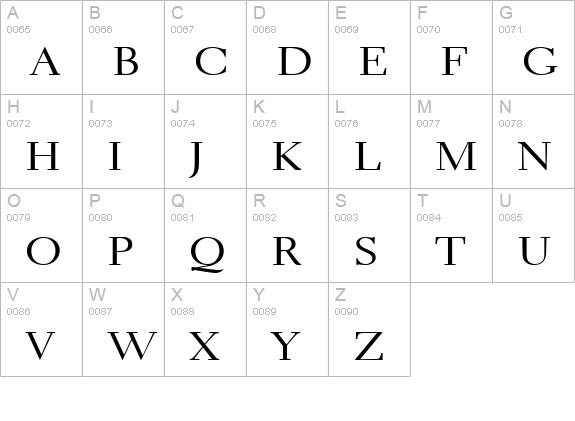
Transit 2 Wide Normal Font Details
Transit 2 Wide Normal is the standard, neutral, extended-width variant in the Transit typeface family \xE2\x80\x94 well suited to general body text, paragraphs, and standard typographic work.
Transit 2 Wide Normal font is a versatile typeface that combines sleek lines with a touch of modernity, making it perfect for a wide range of design projects. This font effortlessly captures attention with its clean and contemporary aesthetic, making it suitable for both print and digital applications. With its wide width, Transit 2 Wide Normal font offers a sense of stability and legibility, making it an ideal choice for headlines, titles, and other prominent text elements. Its tall letterforms and generous spacing ensure readability, even at smaller sizes. One of the best features of Transit 2 Wide Normal font is that it is freely available to download at FontsMarket.com. This means that you can easily access this font and use it in your projects without any restrictions. Whether you're a designer, a student, or a hobbyist, this font offers you the opportunity to enhance your creations with a professional touch, all without breaking the bank. So why wait? Download Transit 2 Wide Normal font today from FontsMarket.com and elevate your designs to new heights. With its contemporary style and the freedom to use it in your projects, this font is sure to become a valuable asset in your typographic toolkit.